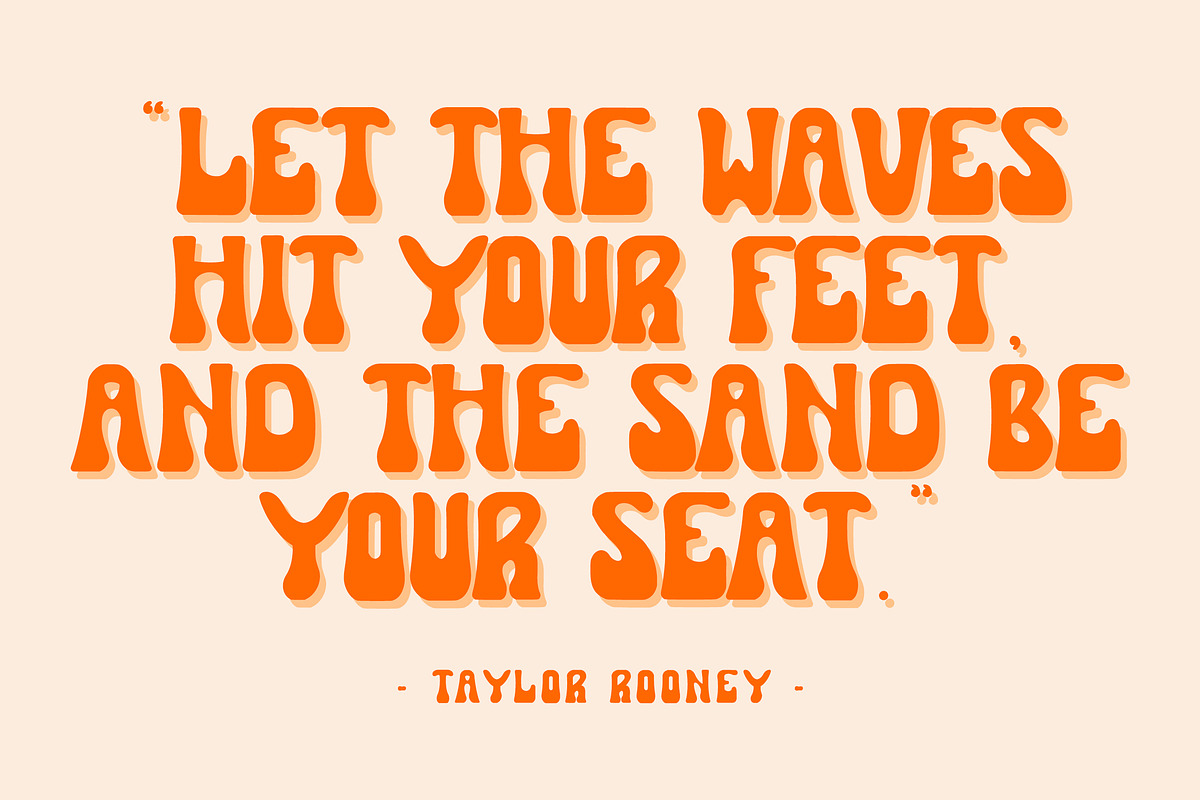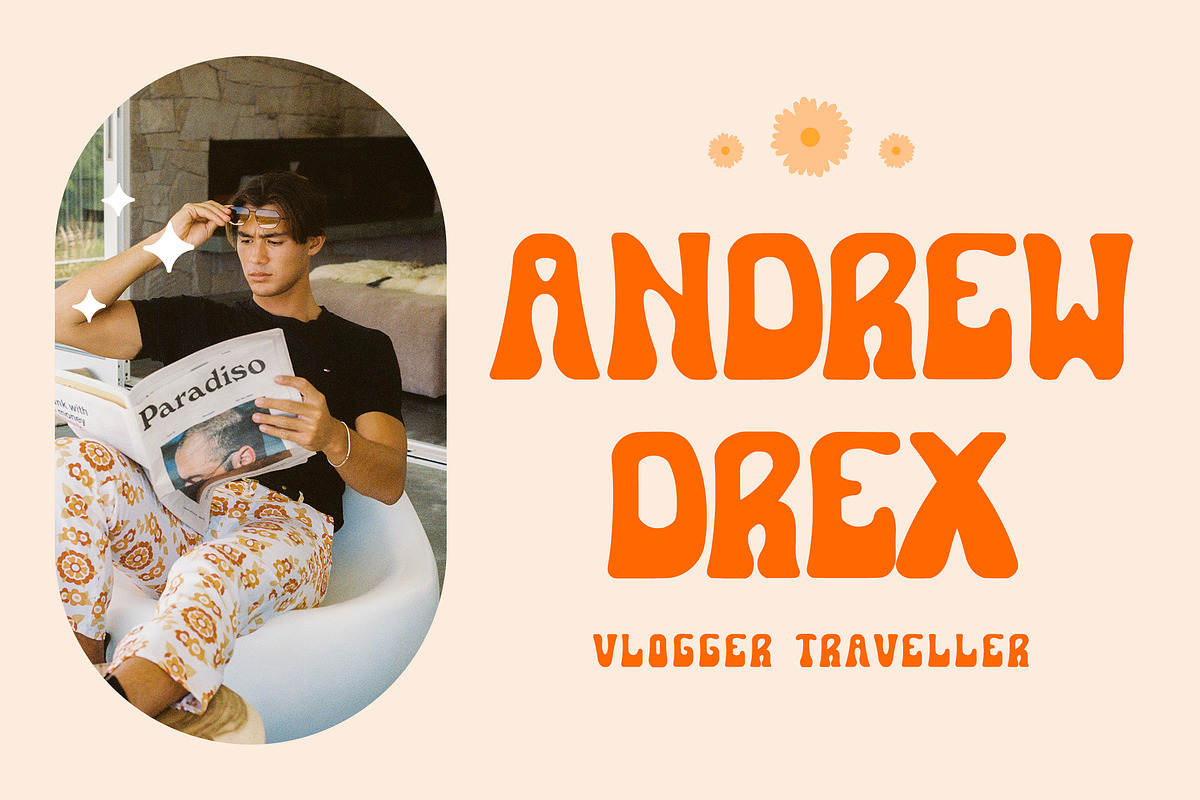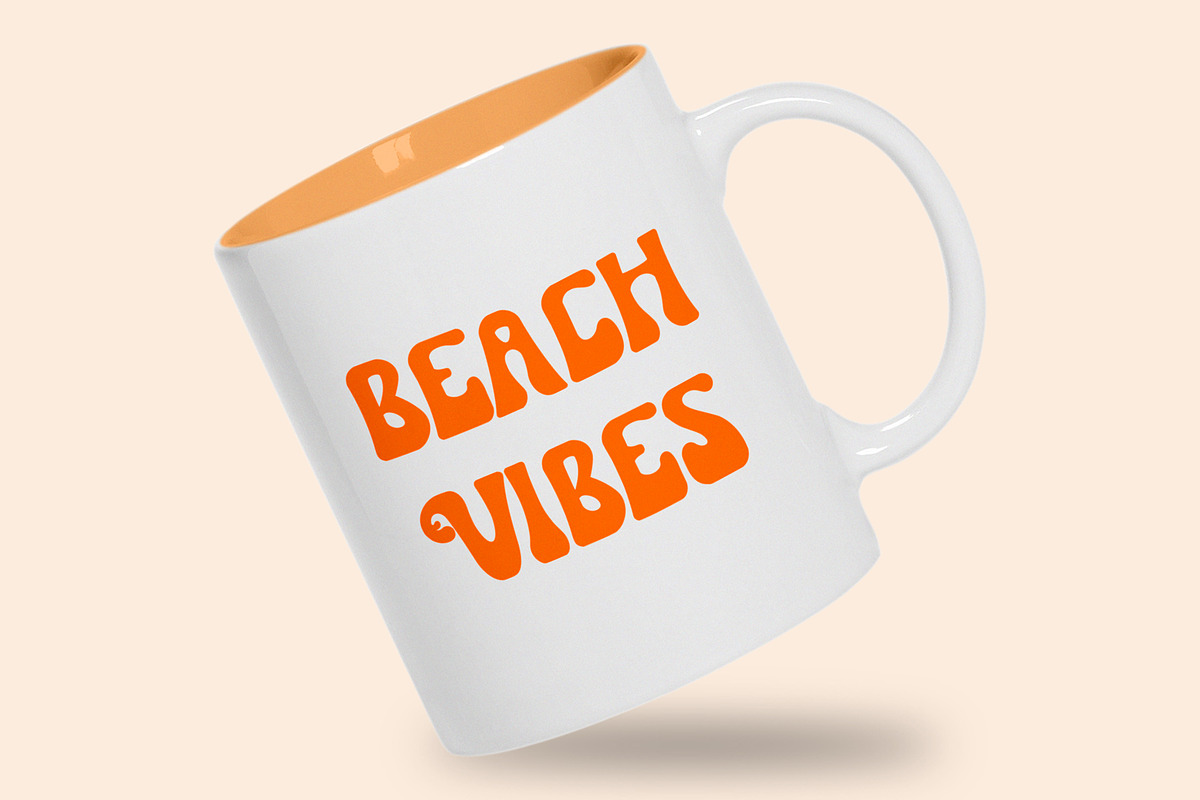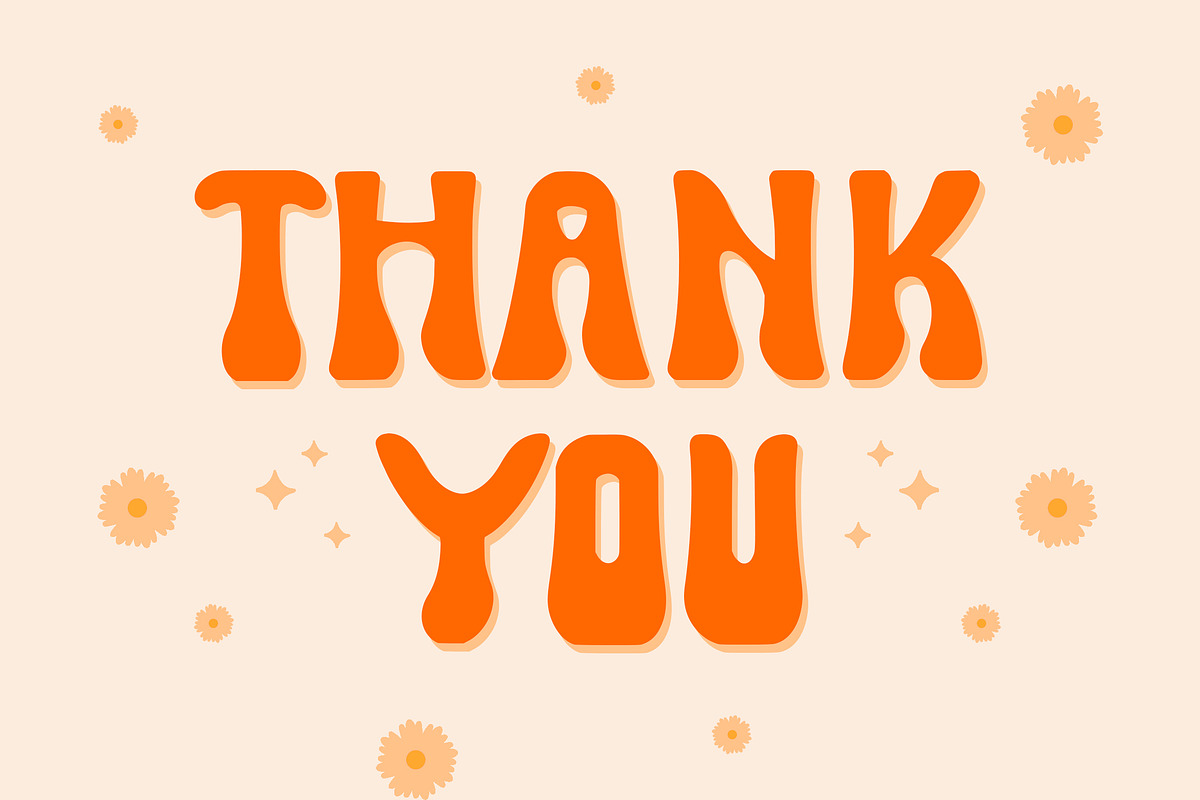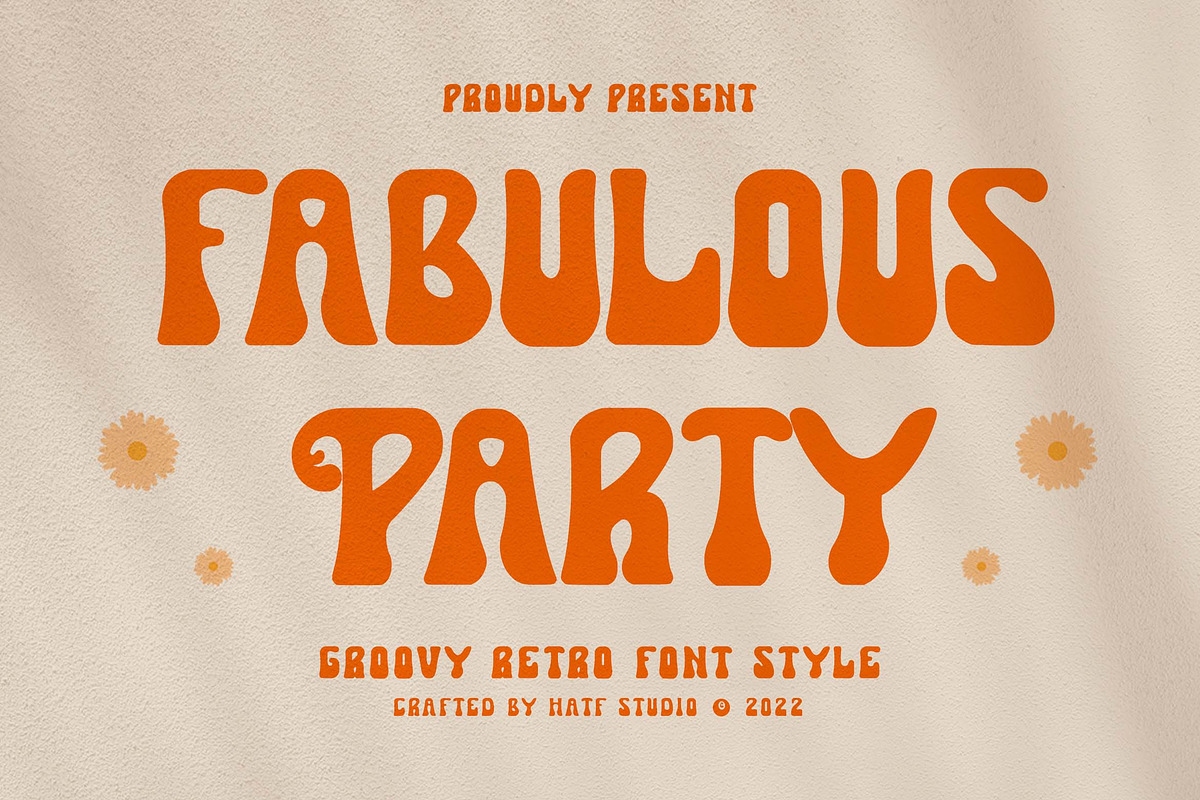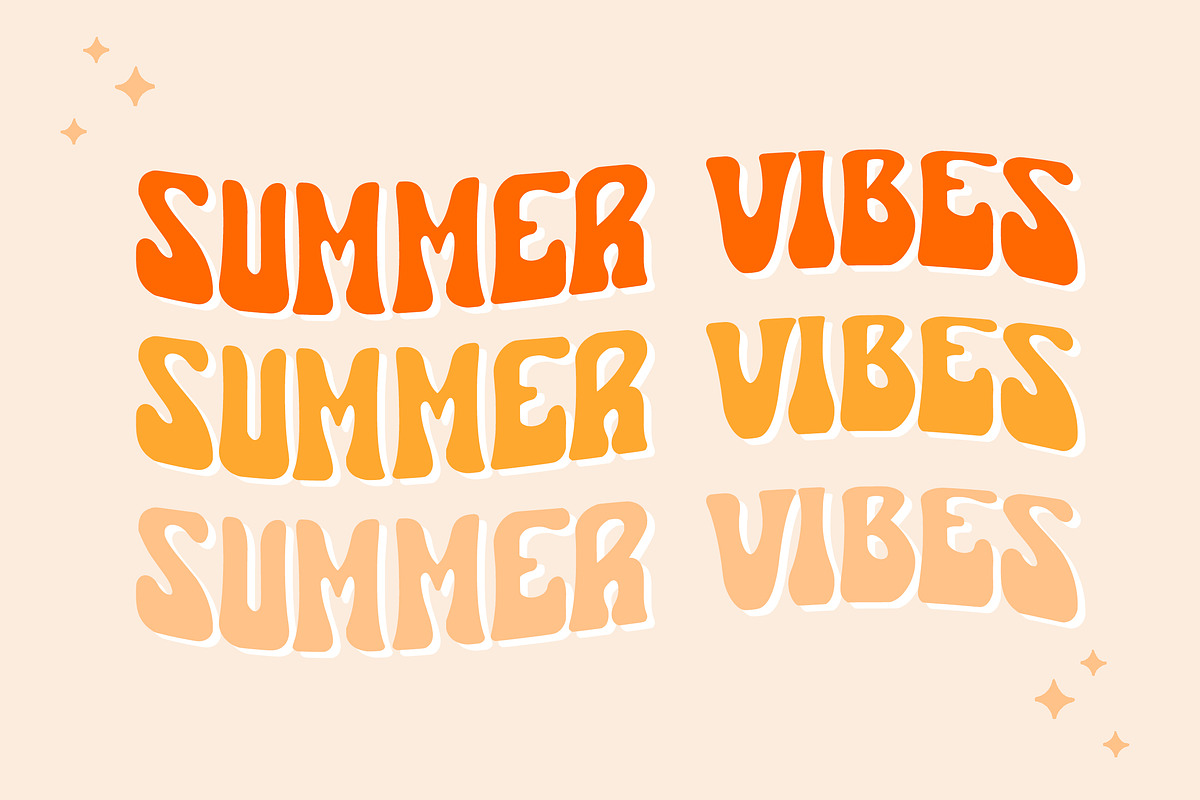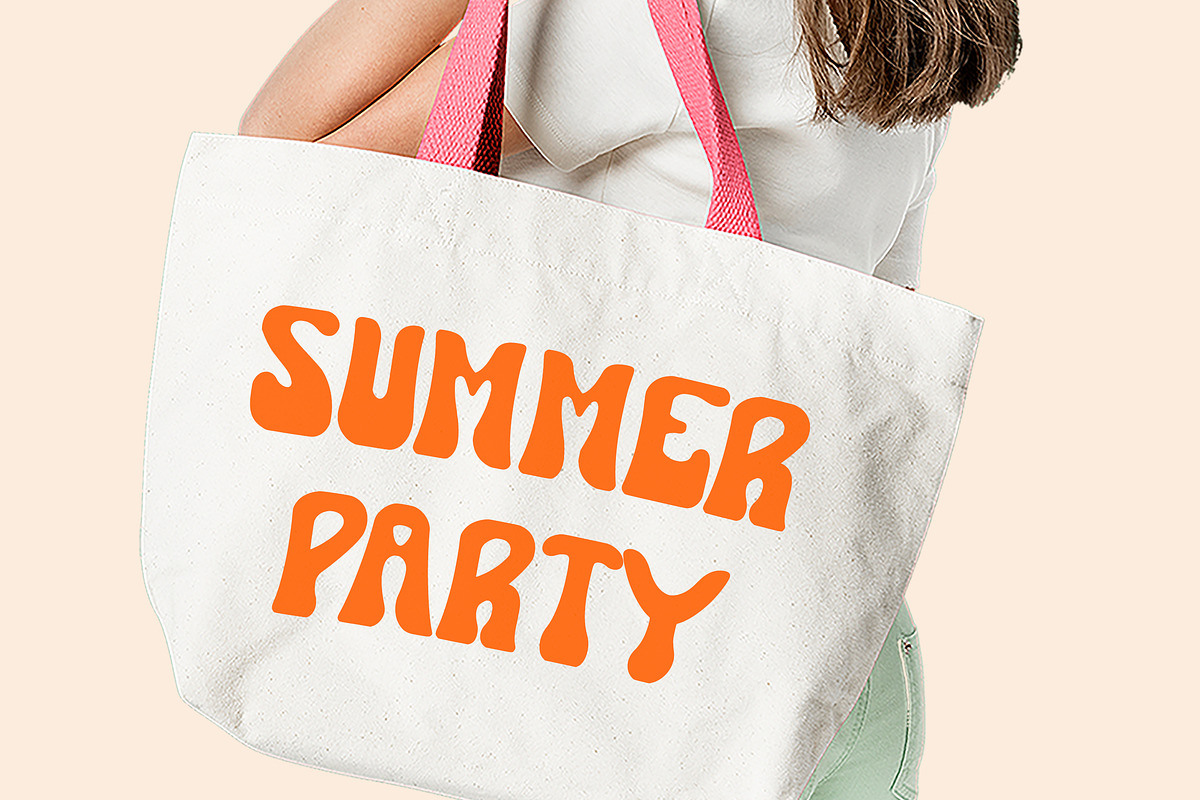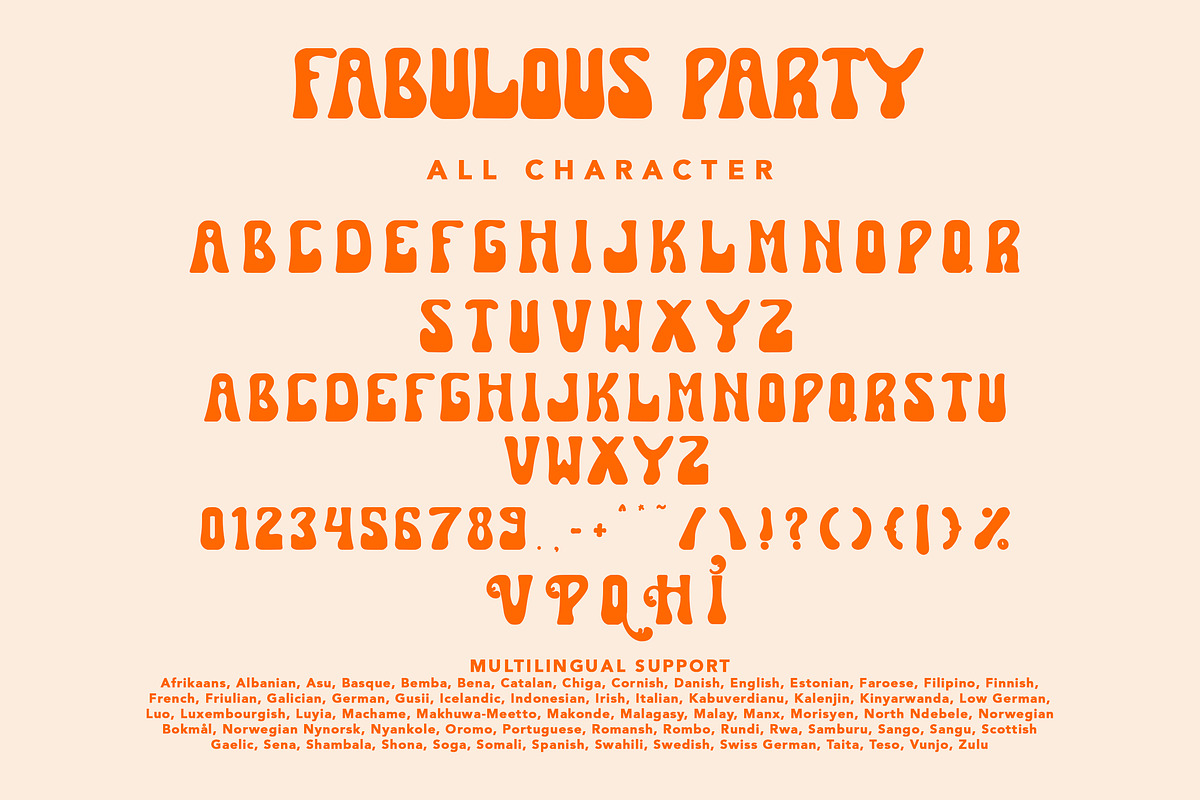
Fabulous Party
Is a font with groovy retro style. With distinctive handwritten characters perfect for branding projects, logos, wedding designs, media posts, advertisements, product packaging, product designs, labels, photography, watermarks, invitations, stationery, and any project who need handwritten dishes.